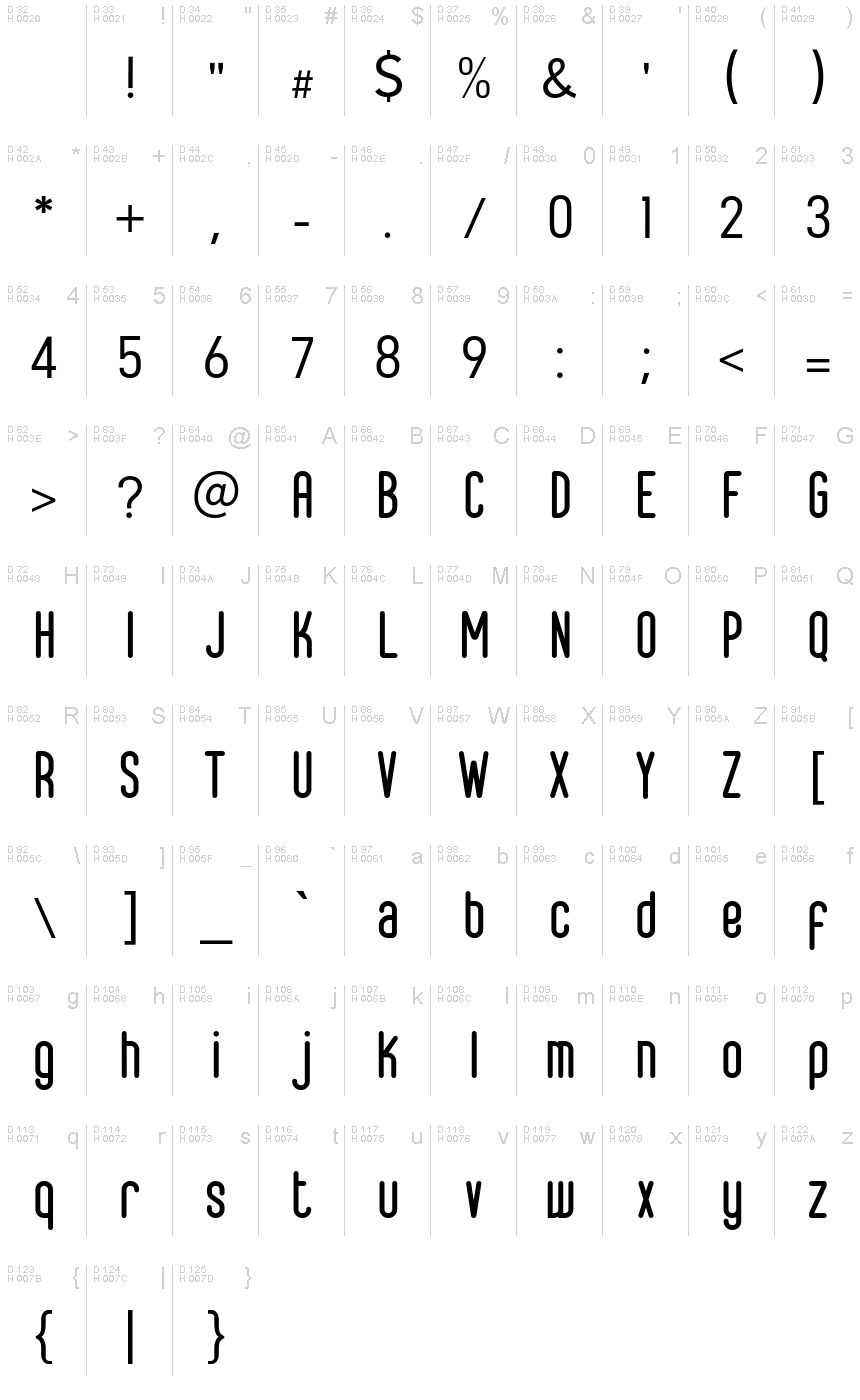
Metrofutura
Metrofutura, a creation by UI Creative, is a captivating round sans serif font that exudes a distinctive, contemporary charm. Its condensed width lends a sleek, streamlined aesthetic, making it a standout choice for modern, minimalist designs. The smooth, rounded letterforms convey a sense of approachability and accessibility, while the subtle geometric elements infuse the font with a touch of precision and sophistication. Metrofutura's versatile nature allows it to seamlessly integrate into a wide range of design applications, from bold display typography to elegant branding and editorial layouts.
Metrofutura's unique characteristics make it a compelling option for designers seeking to craft impactful, visually striking projects. Its condensed form and refined details lend themselves well to headlines, logos, and other prominent design elements, where the font's ability to command attention and convey a sense of elegance is particularly advantageous. Additionally, Metrofutura's legibility and versatility make it a practical choice for body text, signage, and digital interfaces, ensuring a cohesive and polished visual experience across various touchpoints.